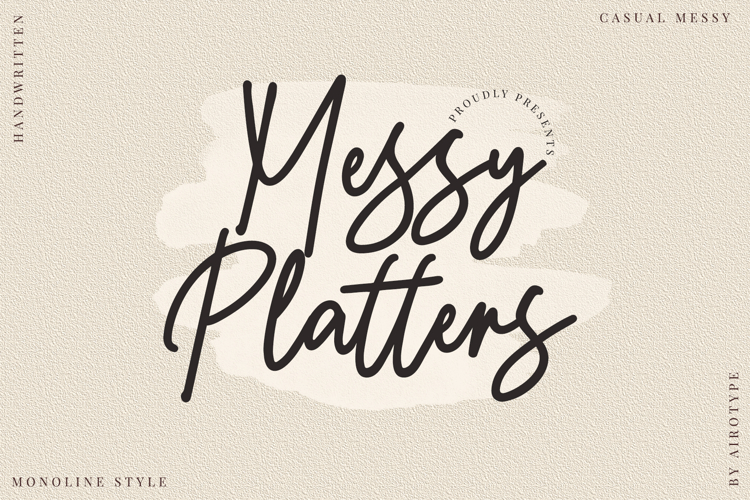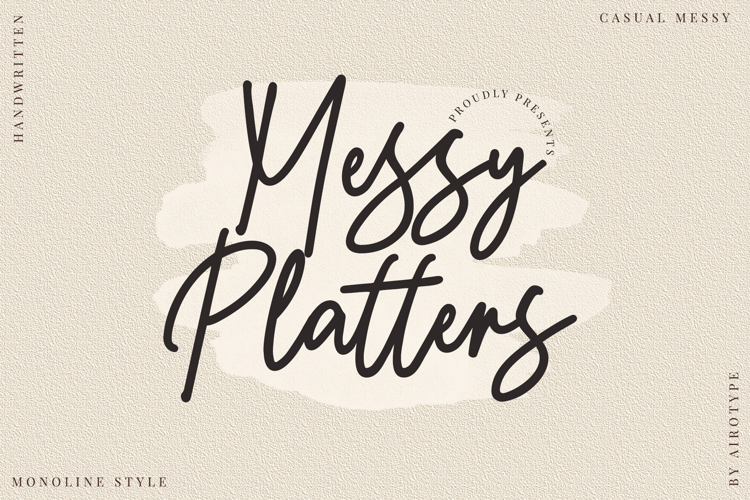
Messy Platters is monoline font with bouncy letters that give the handwritten touch impression.
Messy Platters is suitable for design that needs handwritten touch, such as wedding design, invitation, signature, logo, birthday, t-shirt design, crafting, sticker, sublimation, and many more.